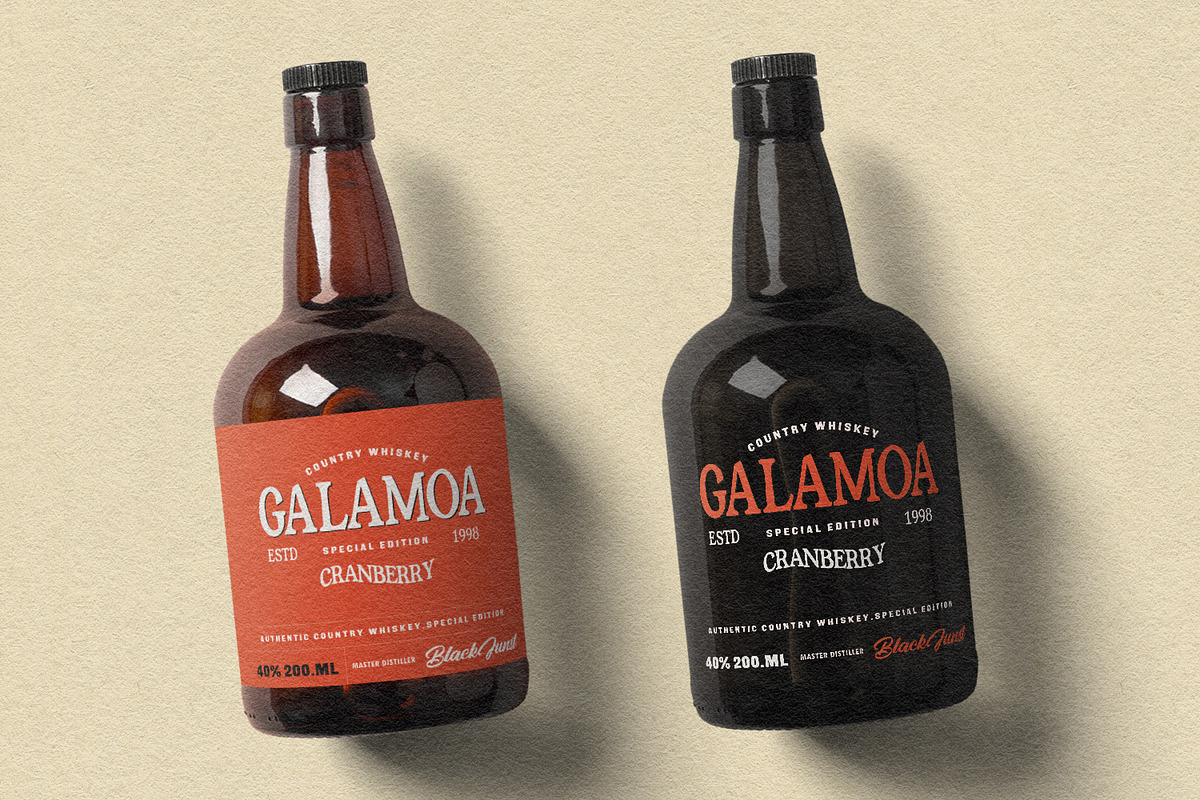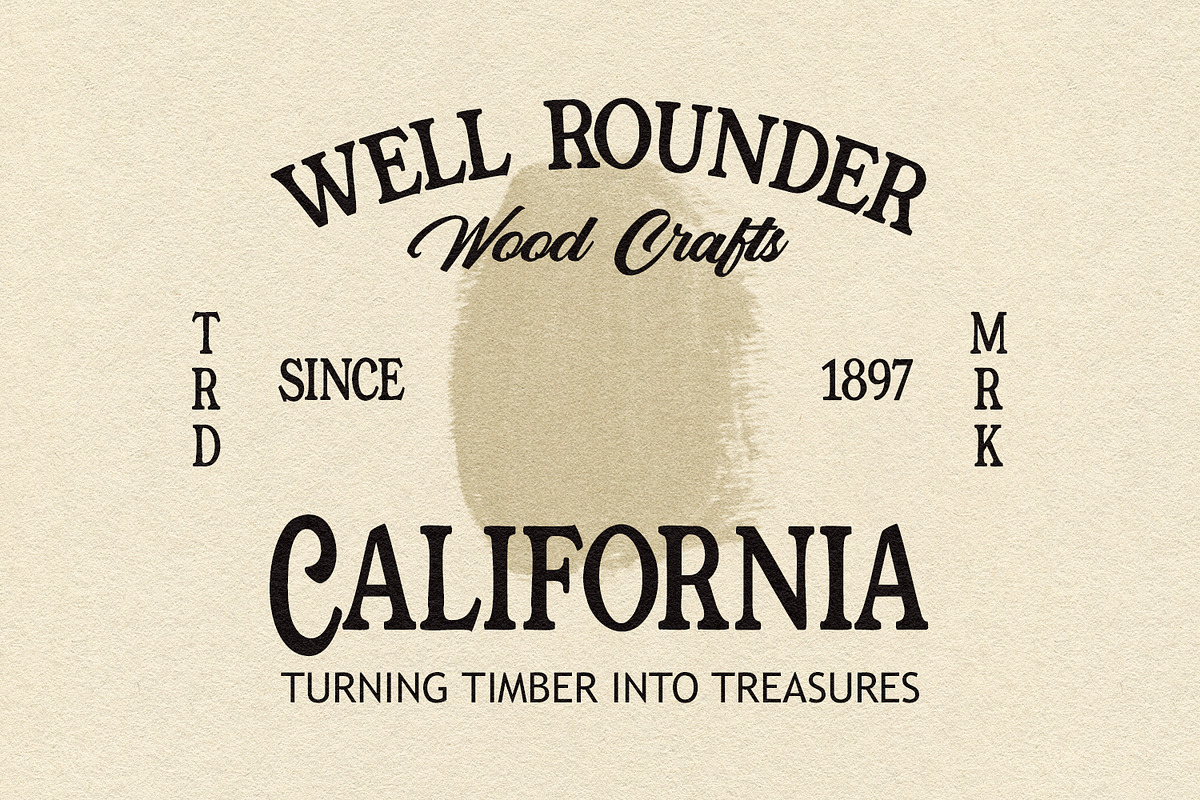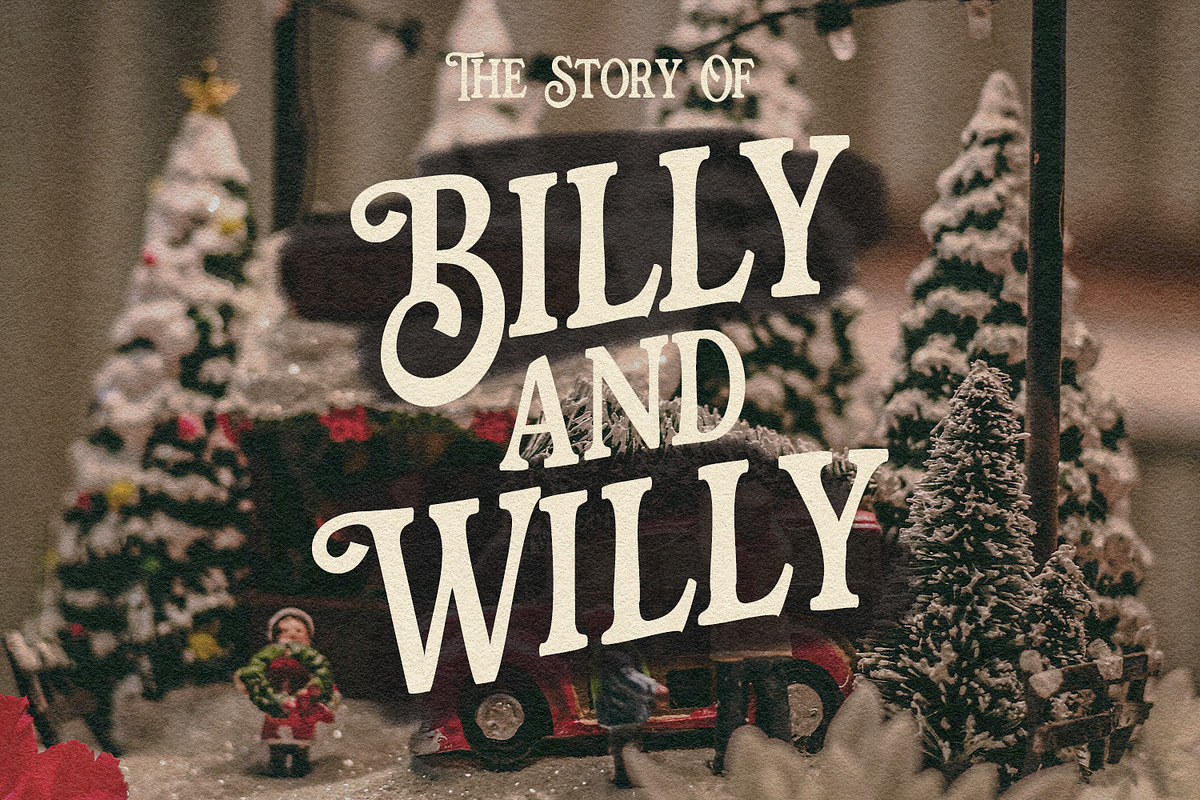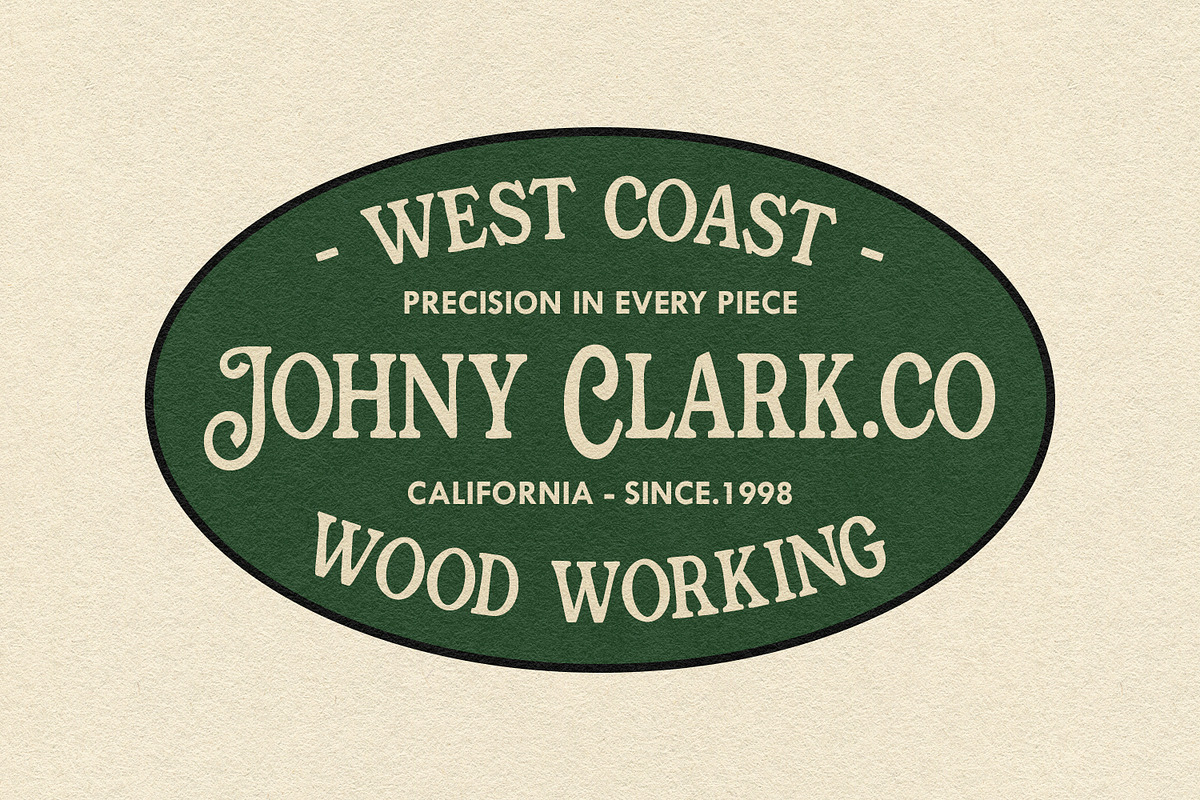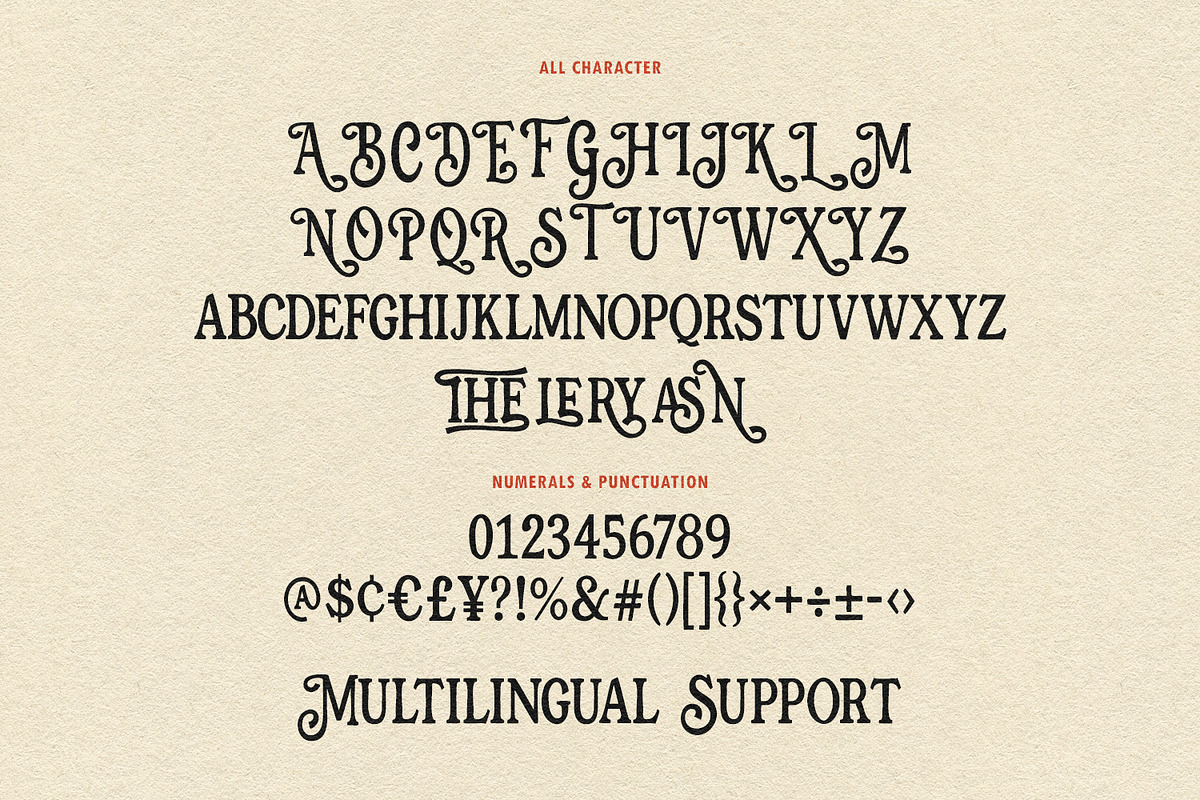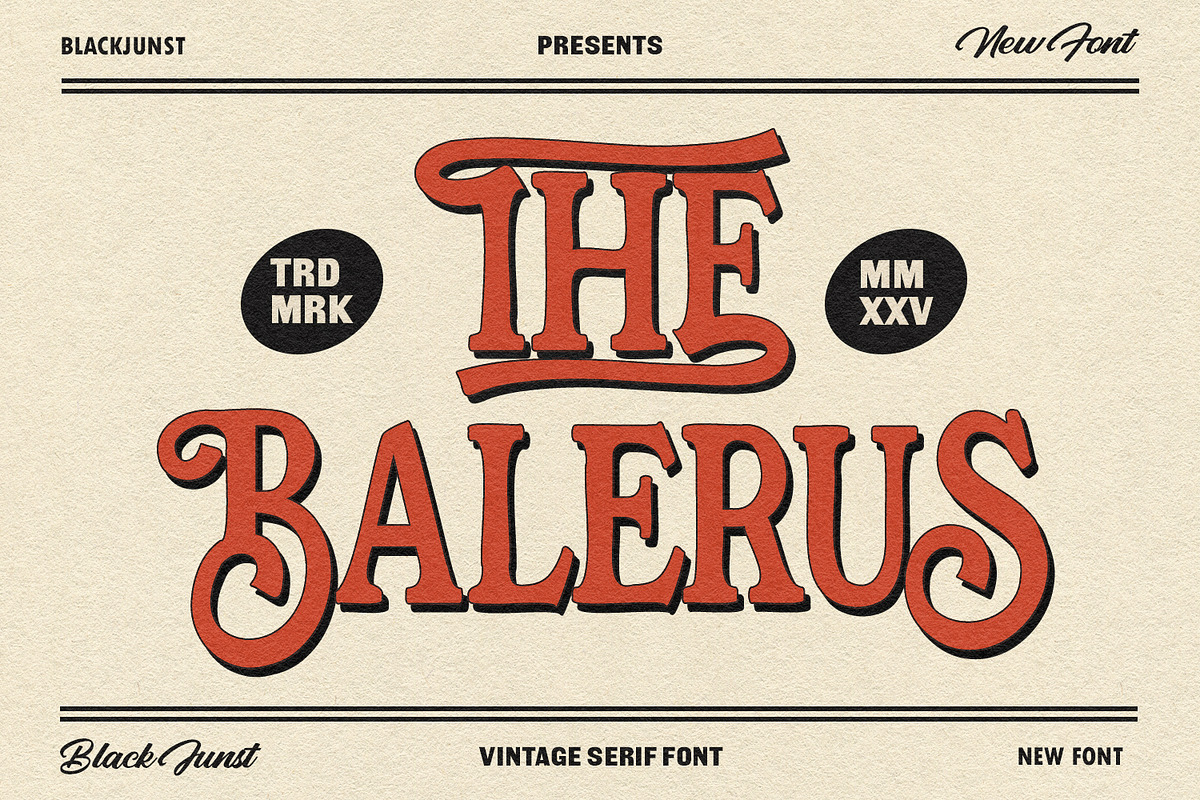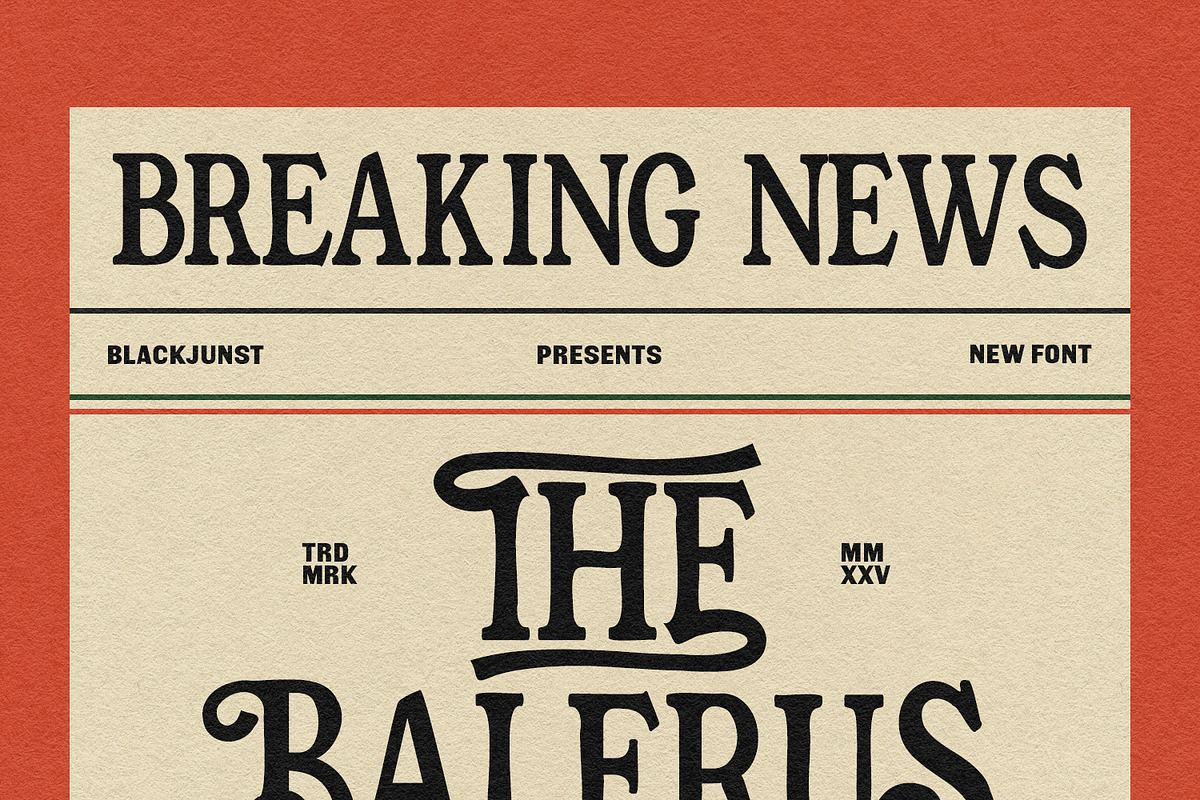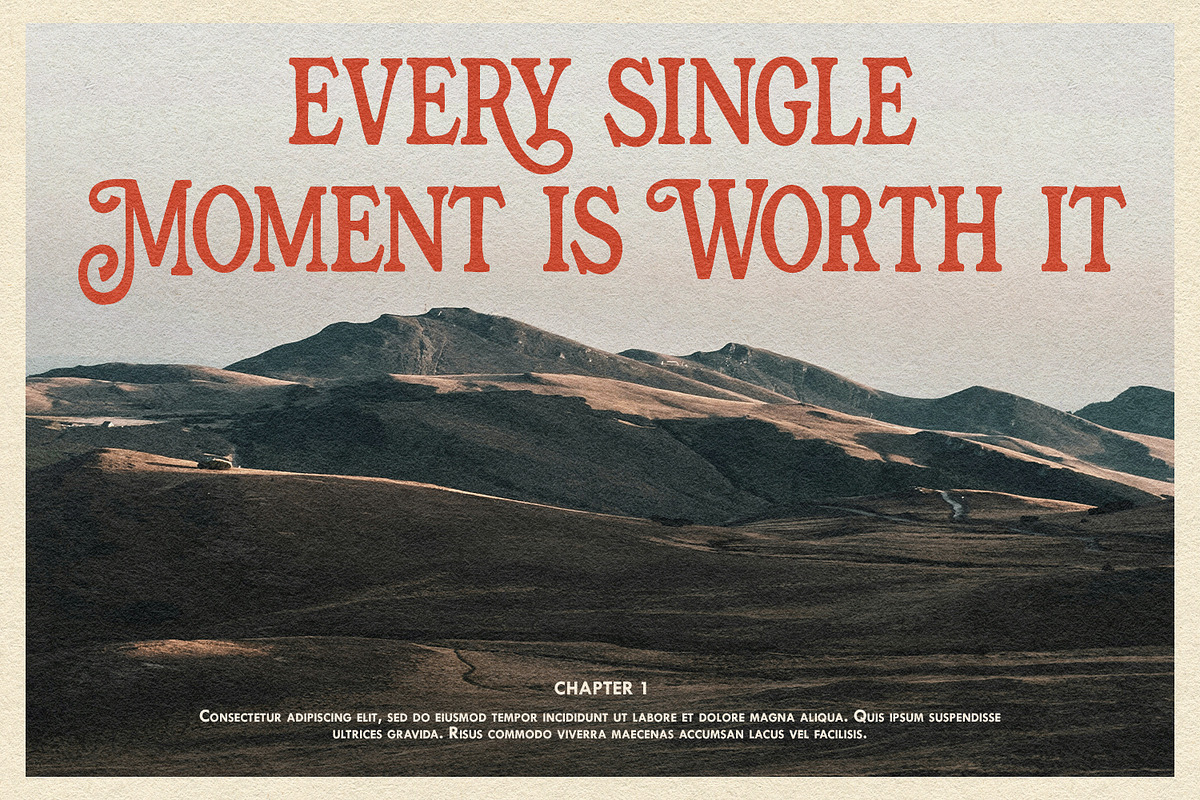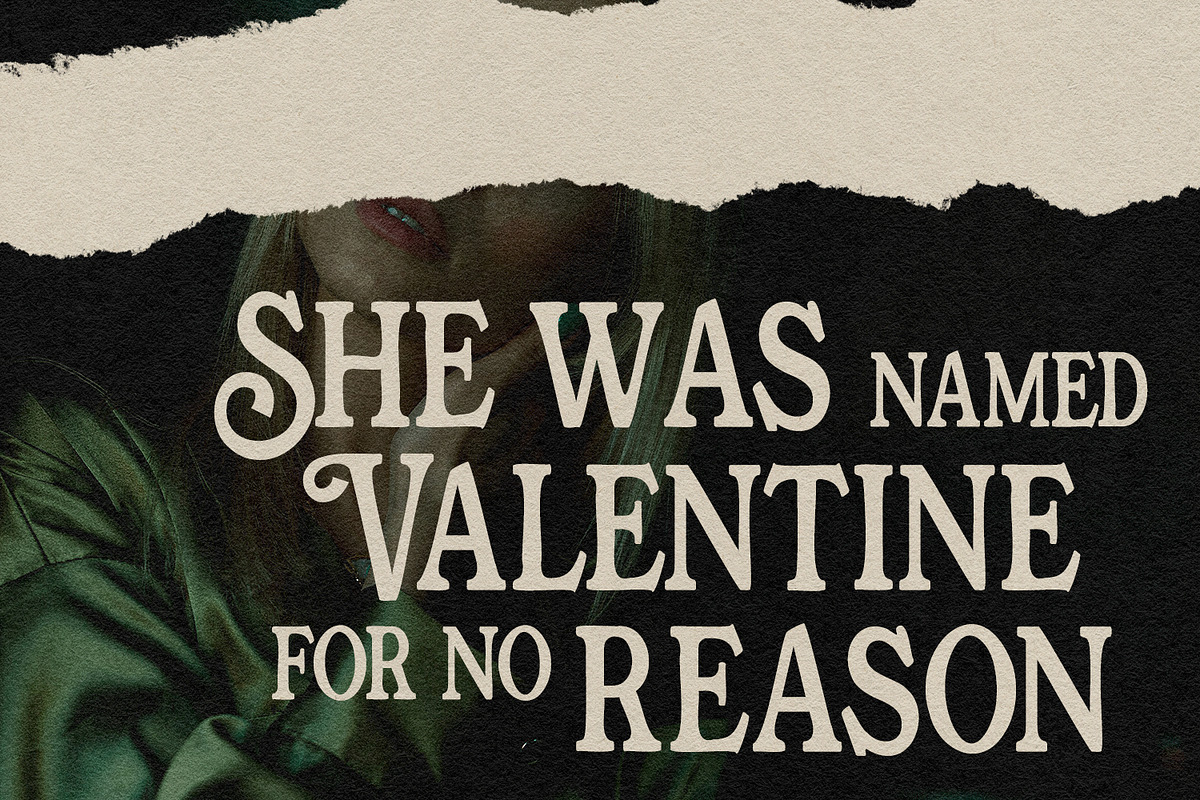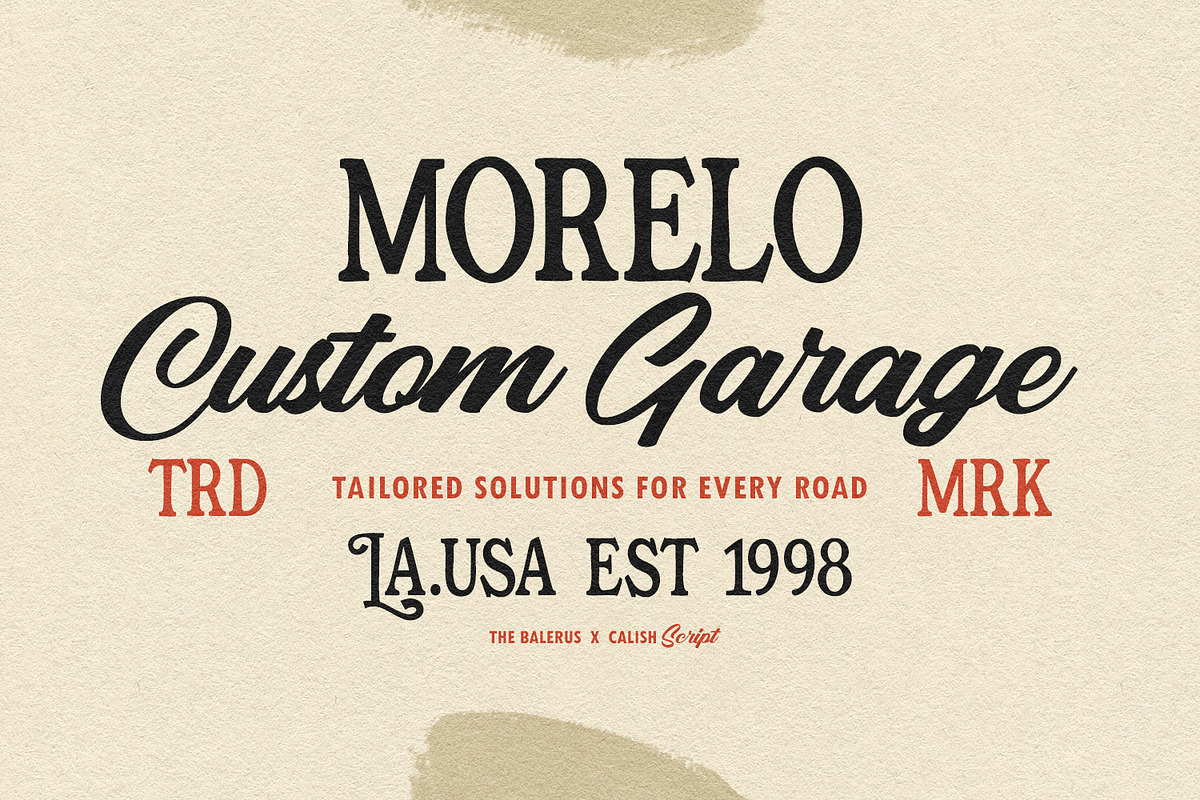
The Balerus – Vintage Serif
The Balerus is a bold vintage serif font inspired by classic typography, retro posters, and traditional sign painting. With its decorative curves, solid structure, and strong presence, this font perfectly captures the timeless charm of vintage design. It blends bold serif shapes with ornamental details, making it ideal for branding projects that demand authenticity and character.
The Balerus includes uppercase and lowercase letters, alternates, ligatures, and multilingual support, giving you full flexibility for logo design, packaging, labels, headlines, and apparel. Its bold strokes and handcrafted touch make every word stand out with personality and confidence.
Perfect for vintage logos, whiskey labels, barbershop branding, retro posters, and old-school merchandise, The Balerus brings back the nostalgic aesthetic of classic lettering with a modern touch.
Bring your design to life with a typeface that speaks heritage and strength. The Balerus—where tradition meets bold creativity. Available in OTF, TTF, and Webfont formats.